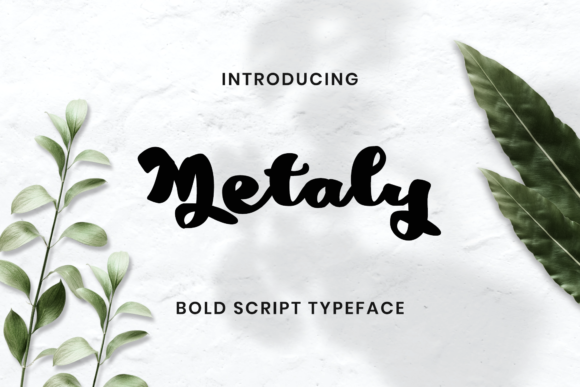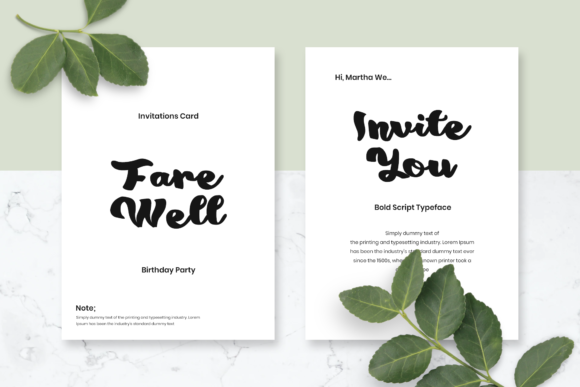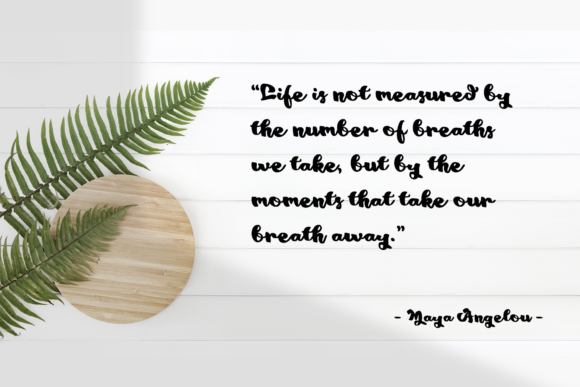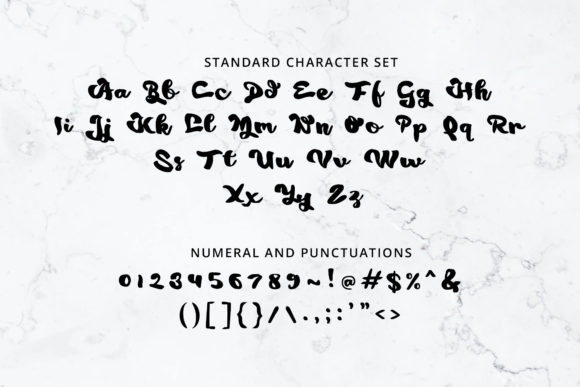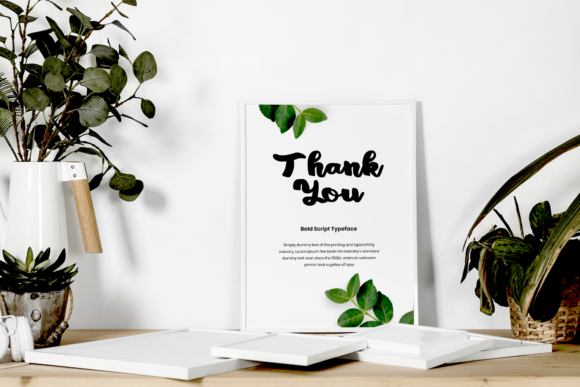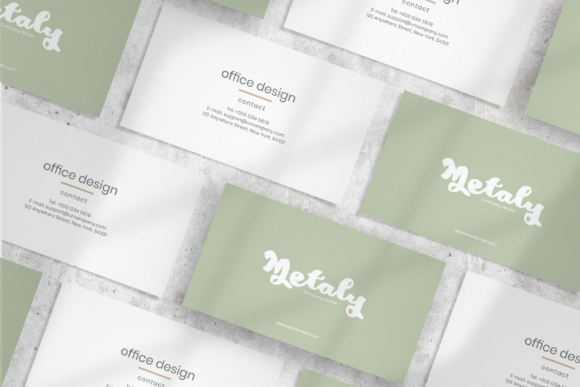
Metaly Font
Metaly is a stunning and dazzling script font that showcases impeccable craftsmanship and intricate details. With its unique and eye-catching design, this font adds a touch of glamour and elegance to any project.
The neatly crafted construction of Metaly ensures that every letter is meticulously formed, resulting in a visually appealing and harmonious typeface. The high level of detail and attention to each stroke and curve make this font truly captivating.
One of the standout features of Metaly is its versatility, allowing it to enhance a wide range of topics and design concepts. Whether you’re working on a fashion brand, a luxurious logo, an elegant invitation, or any other creative project, Metaly has the potential to elevate your design and make a lasting impression.
The detailed and intricate design of Metaly makes it a wonderful asset to any font library. Its versatility allows it to be used in various applications such as branding, advertisements, product packaging, headlines, and more. Regardless of the project, Metaly adds a touch of sophistication and refinement that can enhance any creation.
The potential to enhance any creation is further amplified by the careful craftsmanship and highly detailed letterforms of Metaly. Each character is thoughtfully designed to create a harmonious flow and visual impact, making it a standout font choice for projects that require an element of elegance and sophistication.
In summary, Metaly is a dazzling script font that exudes glamour and attention to detail. Its neatly crafted construction and versatile nature make it a valuable addition to any font library. Whether you’re working on a fashion-related project or any other creative endeavor, Metaly has the potential to enhance your designs and captivate your audience.